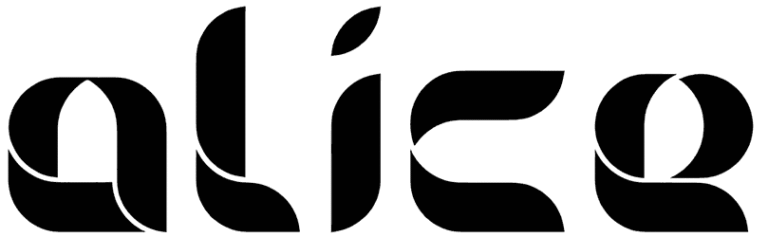
Cascadeur Rnd Font
The most straightforward task in the world is designing high-end and tempting graphic content, including logos, business cards, flyers, brochures, or book covers with the help of a mind-blowing techno font like Cascadeur Rnd. Despite the undeniable fact that due to its unique and geometrical style, it doesn’t have good readability, it still carries a sense of modernity, innovation, spooky, and eccentricity.
Cascadeur is a variable modular sans with 3 axes, a modernist homage to space-age typography. It was designed by Peter Bushuev and released in April of 2020.
Cascadeur was born from a type design study and went a long way to its final form. The main feature is a structure of the font: it based on 4 lines grid, has very tight spacing to achieve maximum space coverage and set of inventive letterforms.
It is also a variable font and has 3 axes: weight, slant, and roundness.